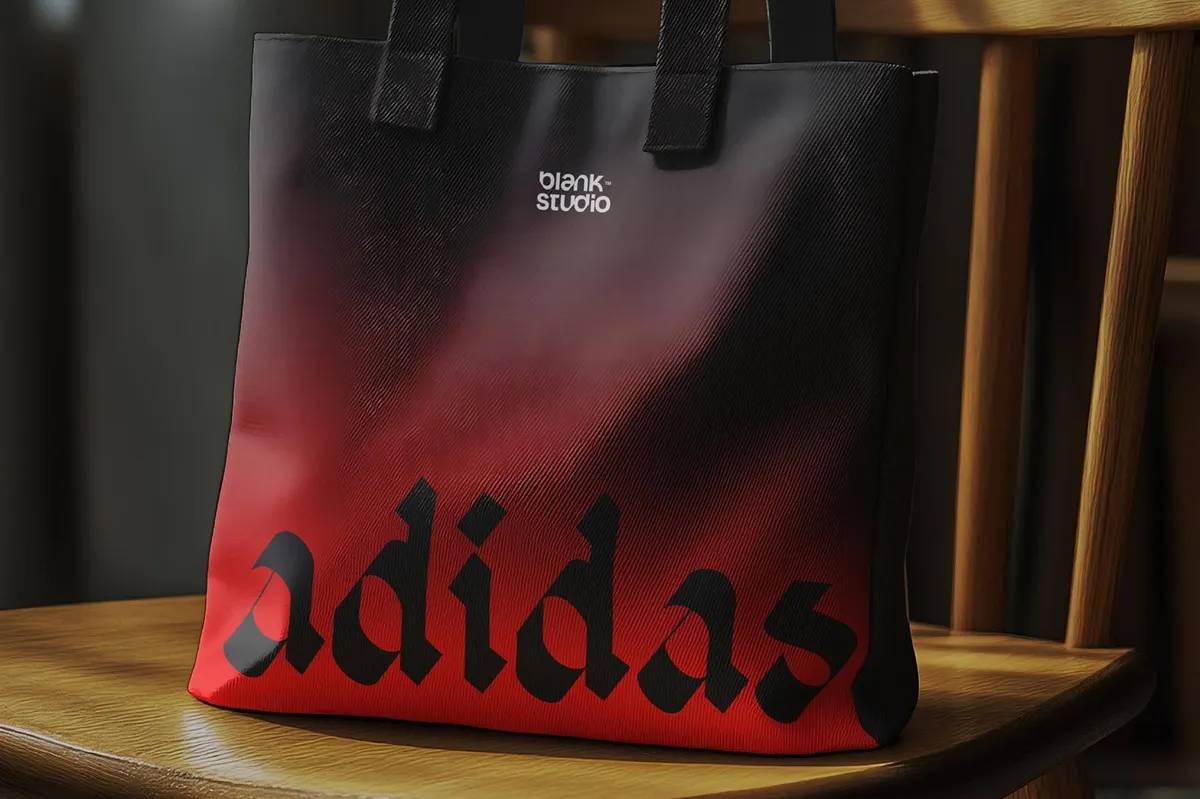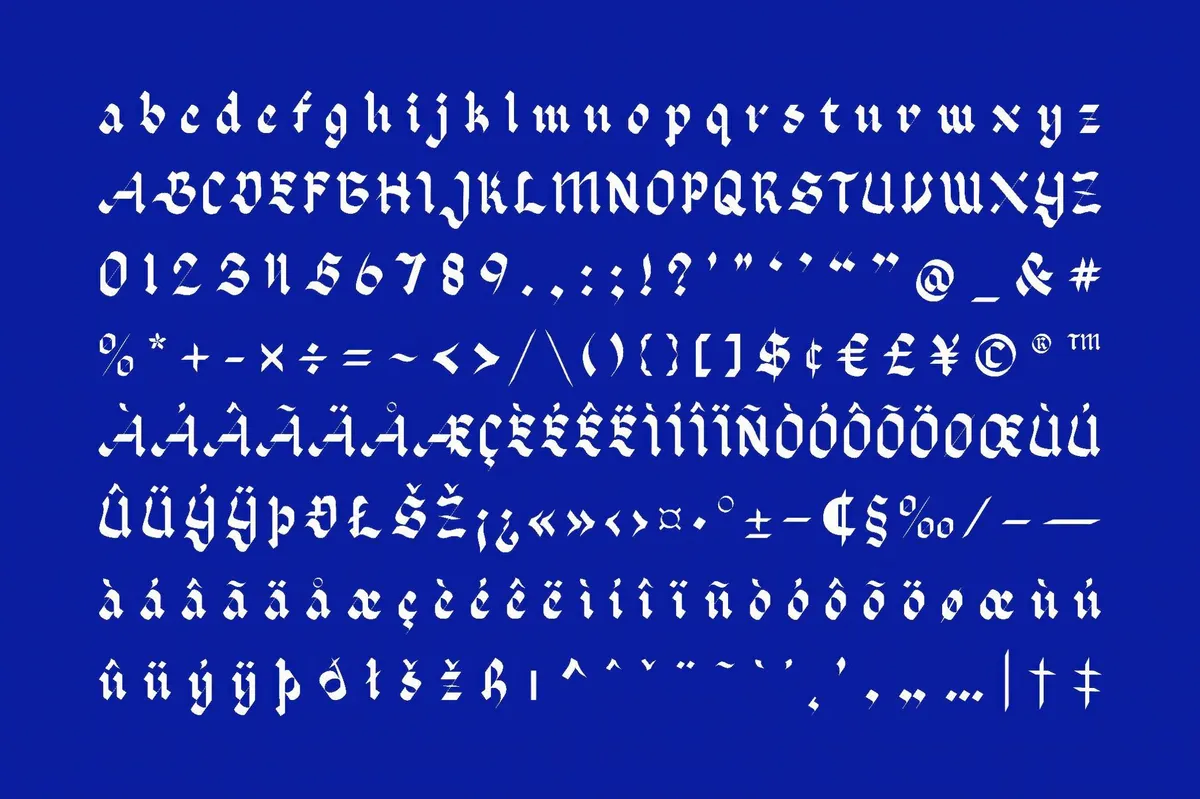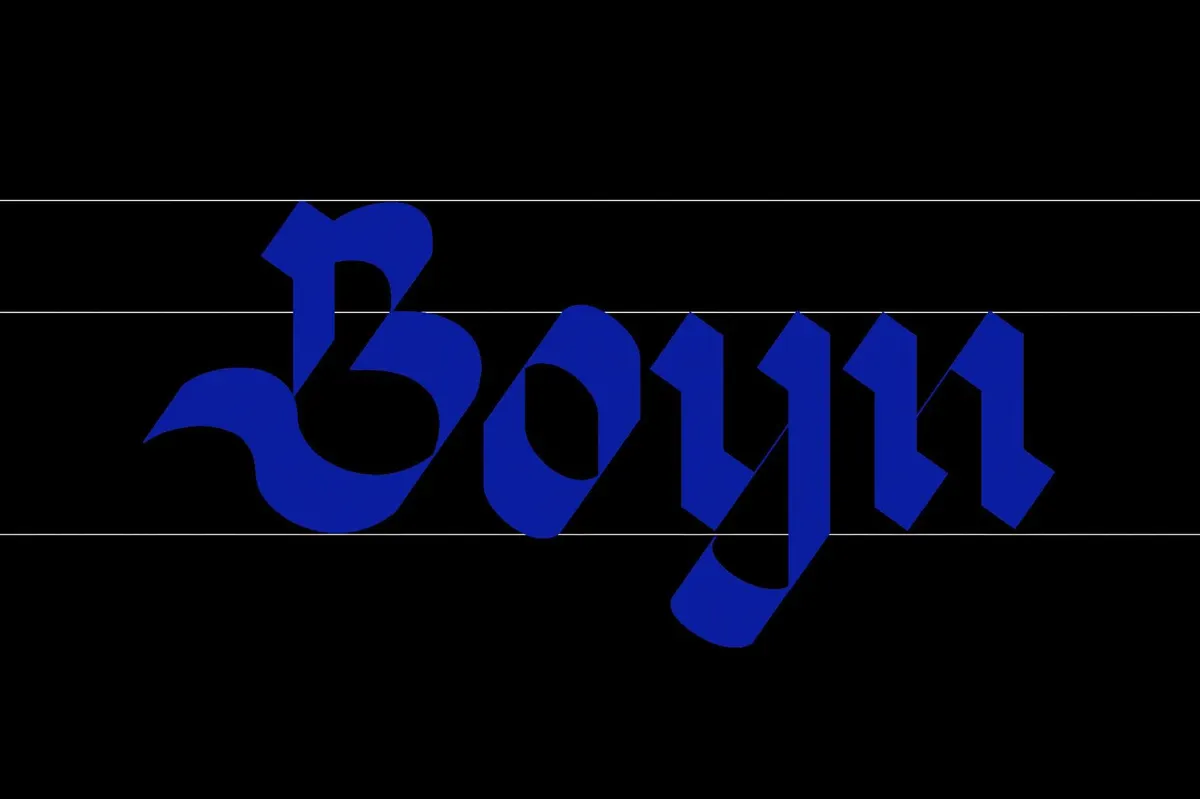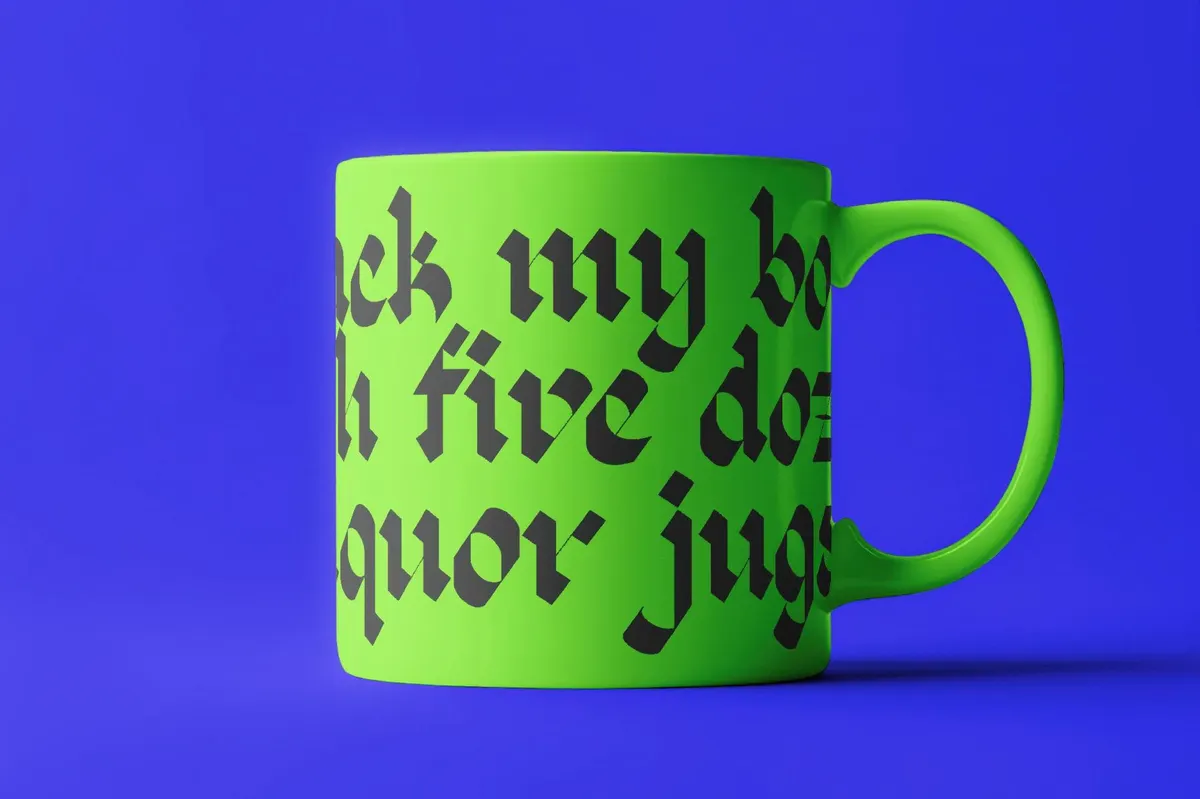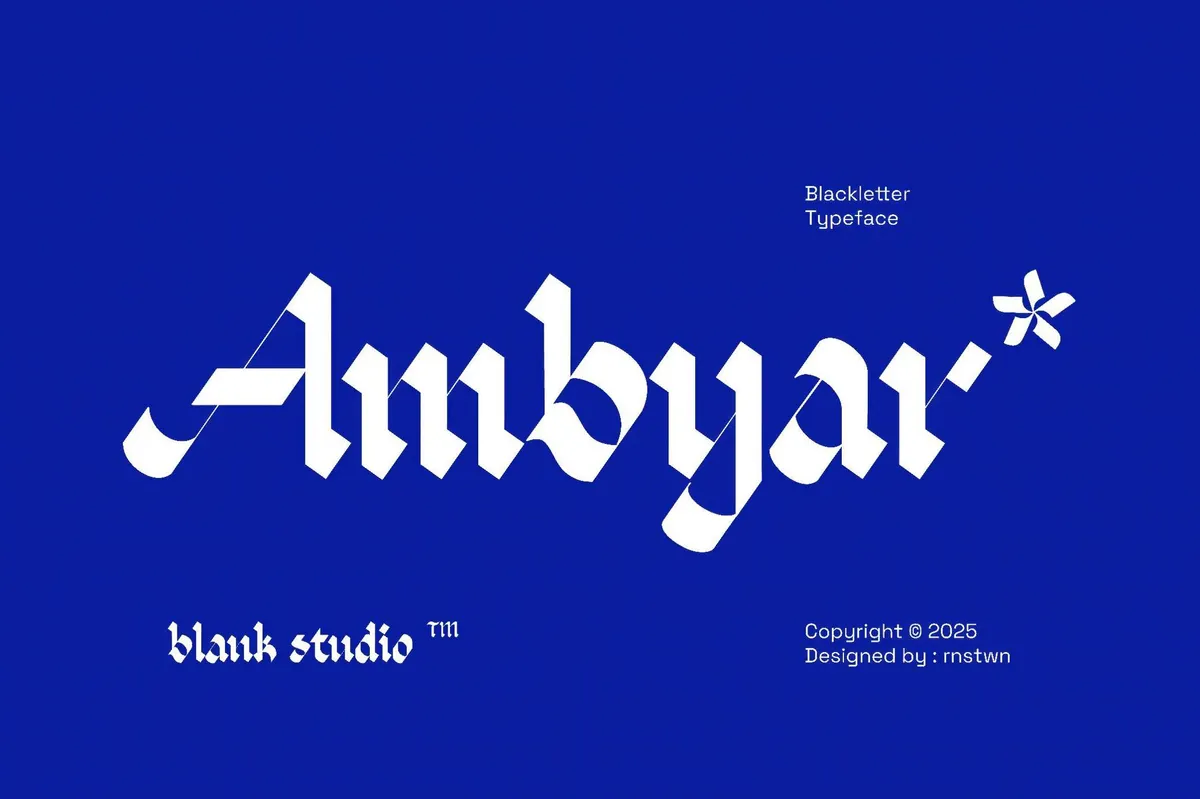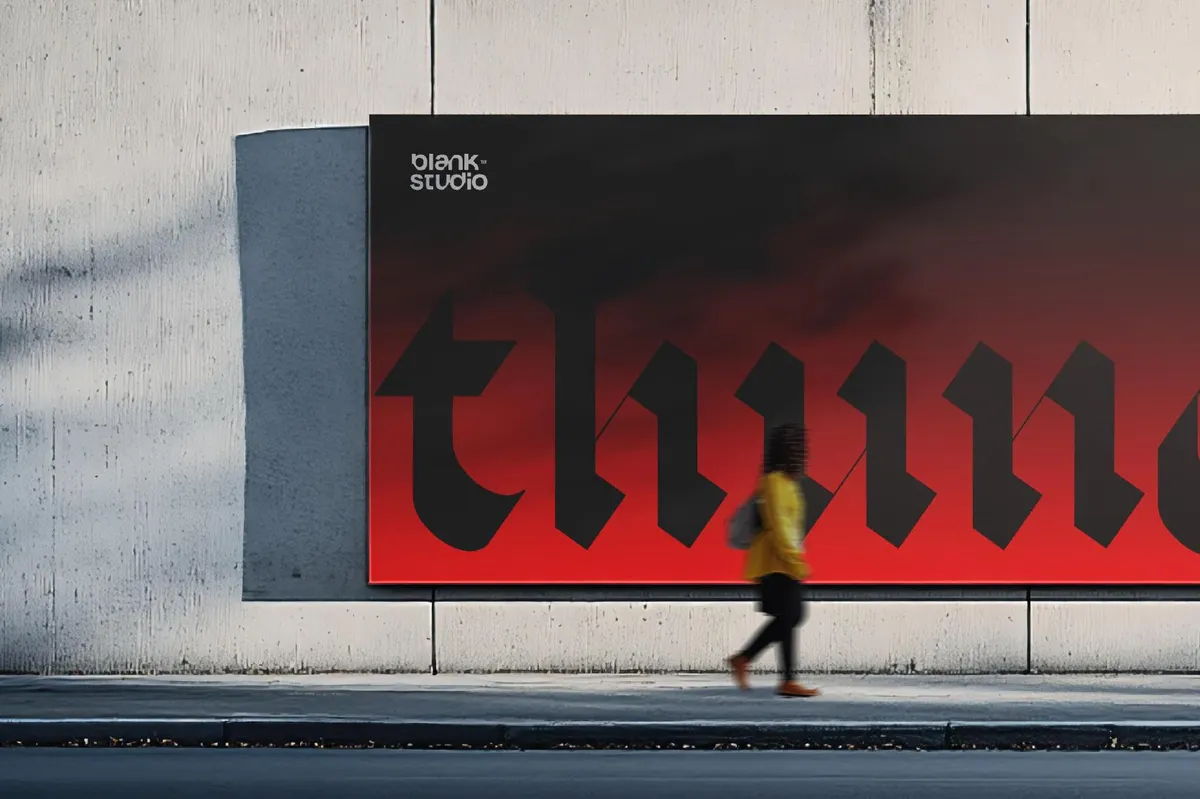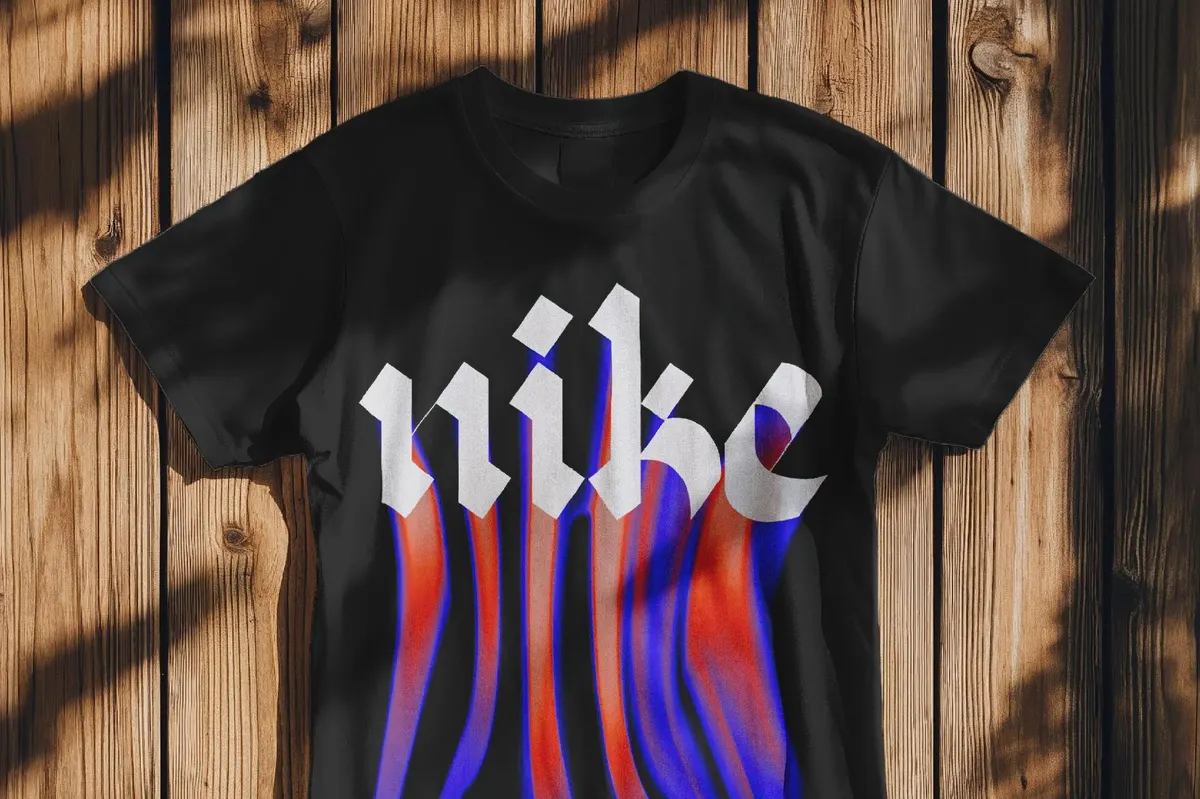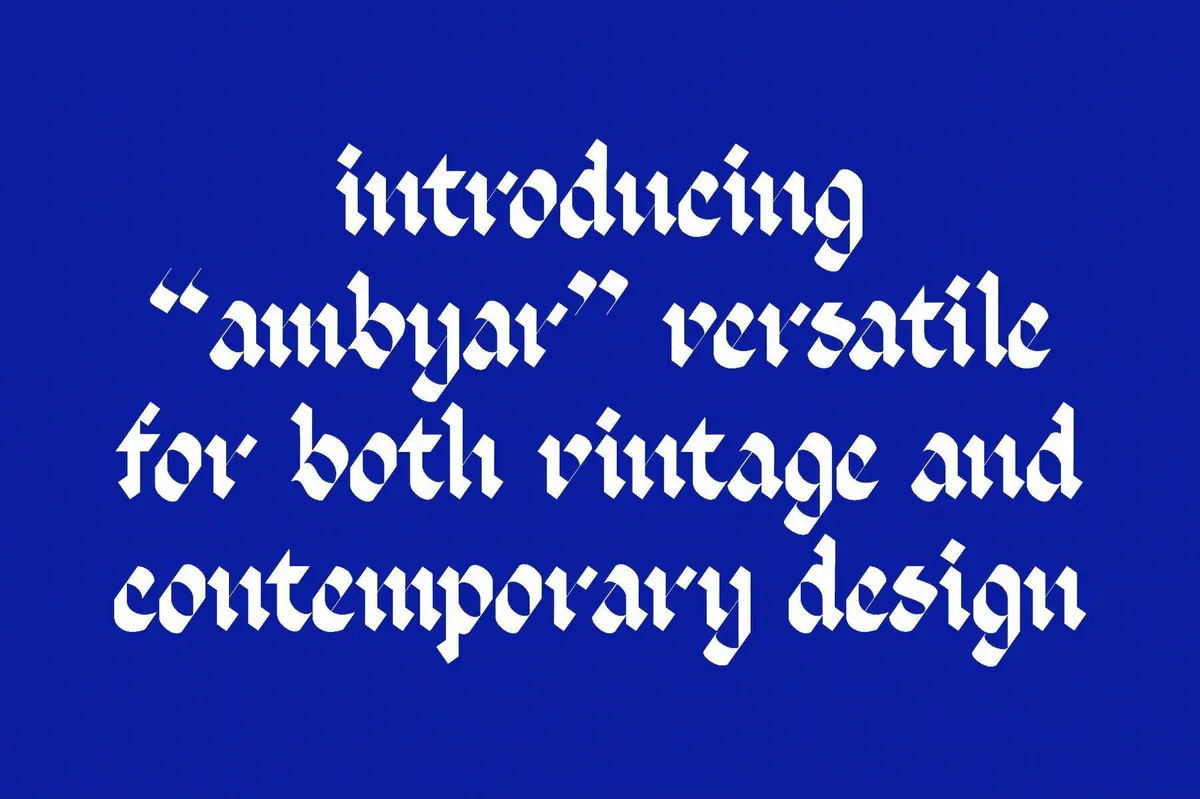
Ambyar Blackletter Type
Gothic, but make it graphic. Ambyar Black slices through traditional blackletter with an avant-garde edge, recoding centuries-old script into something dangerously contemporary. Every sharp serif and fractured curve leans into nostalgia while rejecting imitation, forging a display face that thrives in contrast — heritage meets heat, reverence meets riot. It’s the type you’ll see painted across underground zines, fashion drops, or album covers that refuse to blend in.
Ambyar Black moves effortlessly between classic gravitas and digital bravado. It’s less about decoration and more about declaration — perfect for those who want their type to feel ancient and alive all at once. Spice it up with multiple language support, including Basic Latin, English, Spanish, Portuguese, Italian, German, and French.